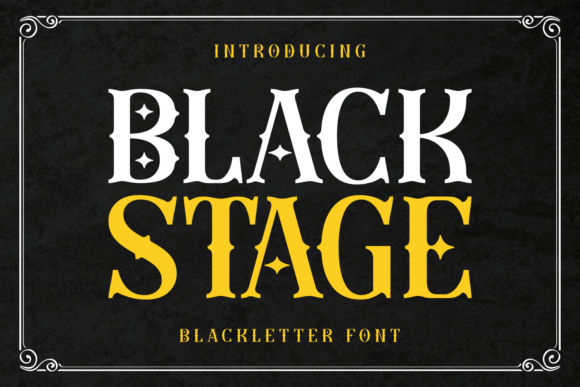
The Power of Black Stage Font: Unleashing Dramatic Blackletter Style
I still remember the design project that led me to discover the Black Stage font. I was working on a Gothic-inspired poster for a metal band’s concert, and I was struggling to find a font that captured the essence of their dark, edgy style. That’s when I stumbled upon Black Stage, a bold, dramatic blackletter font that instantly caught my attention. Its sharp edges and ornate details were perfect for the project, and I’ve been hooked ever since.
An Honest Review of Black Stage Font
• ✨ Bold and dramatic: Black Stage font makes a statement with its striking style, perfect for designs that need to command attention.
• ✅ Gothic-inspired: The font’s ornate details and sharp edges evoke a sense of mystery and elegance, ideal for Gothic-inspired designs, tattoos, and medieval themes.
• 💡 Versatile: Black Stage font can be used for a variety of creative projects, from metal band logos to movie posters and even craft projects like tattoo designs.
While Black Stage font is an amazing addition to any design project, there are a few things to keep in mind:
• ⚠️ Legibility: Due to its ornate details and bold style, Black Stage font may not be the best choice for body text or long paragraphs.
• 🤔 Pairing with other fonts: Black Stage font can be quite dominant, so it’s essential to choose complementary fonts that won’t compete with it.
The Backstory of Black Stage Font
Legend has it that Black Stage font was inspired by the dark, mystical world of medieval folklore. Its designer, a typography enthusiast, wanted to create a font that captured the essence of Gothic architecture and the mysterious world of myth and legend. The result is a font that’s both elegant and intimidating, perfect for designs that need to make a bold statement.
Q: What type of projects is Black Stage font best suited for?
A: Black Stage font is perfect for Gothic-inspired designs, tattoos, metal band logos, and medieval-themed projects.
Q: Is Black Stage font available in different weights or styles?
A: Yes, Black Stage font comes in several weights and styles, including bold, regular, and italic.